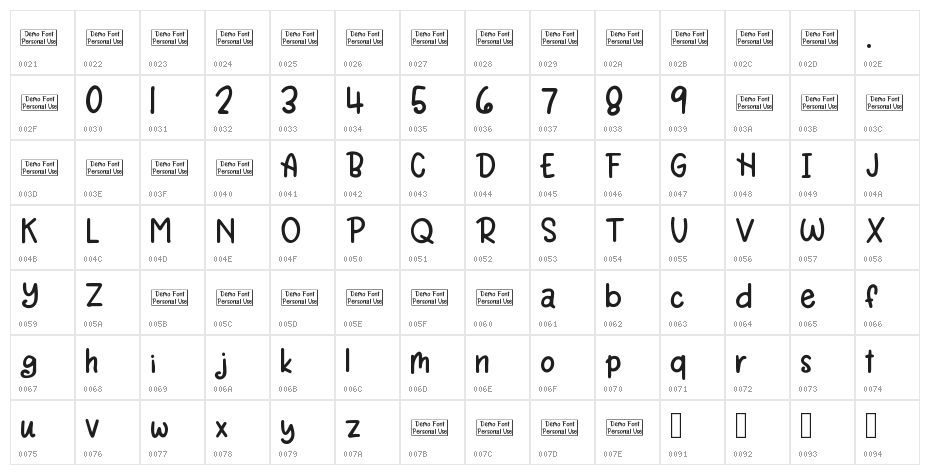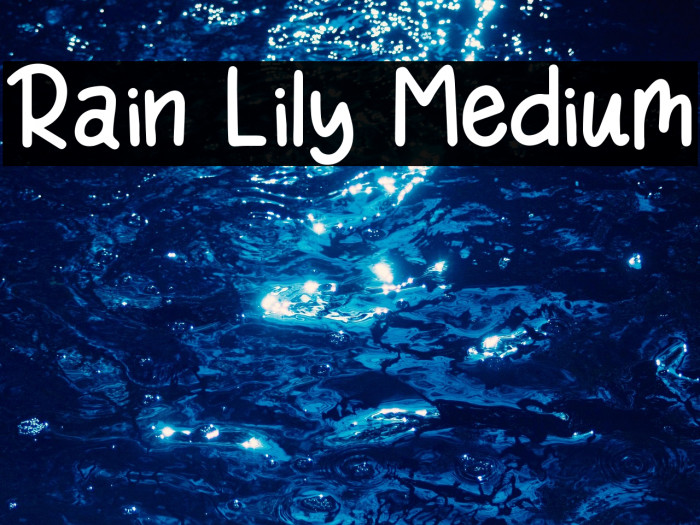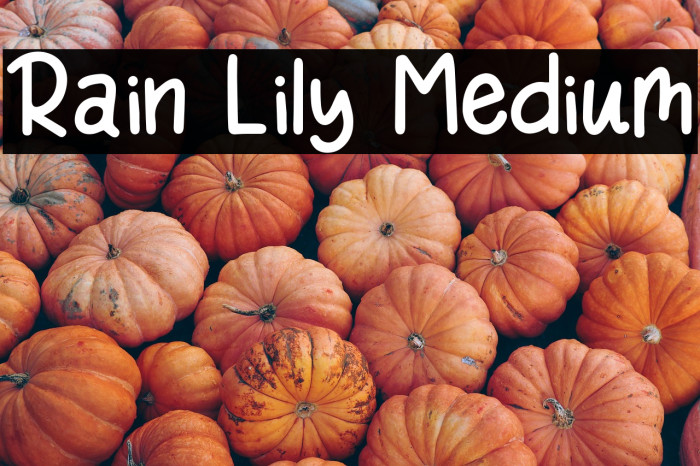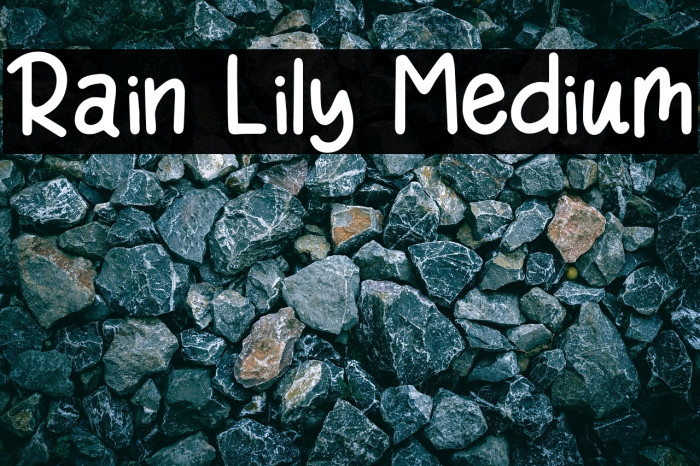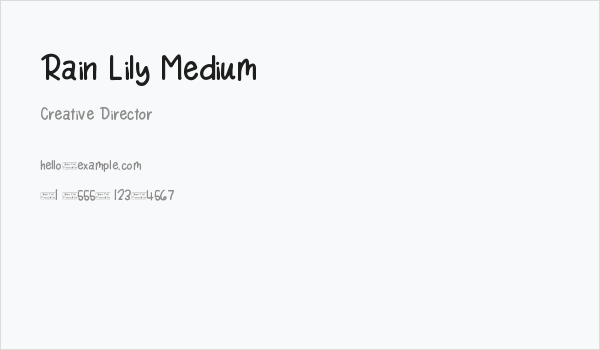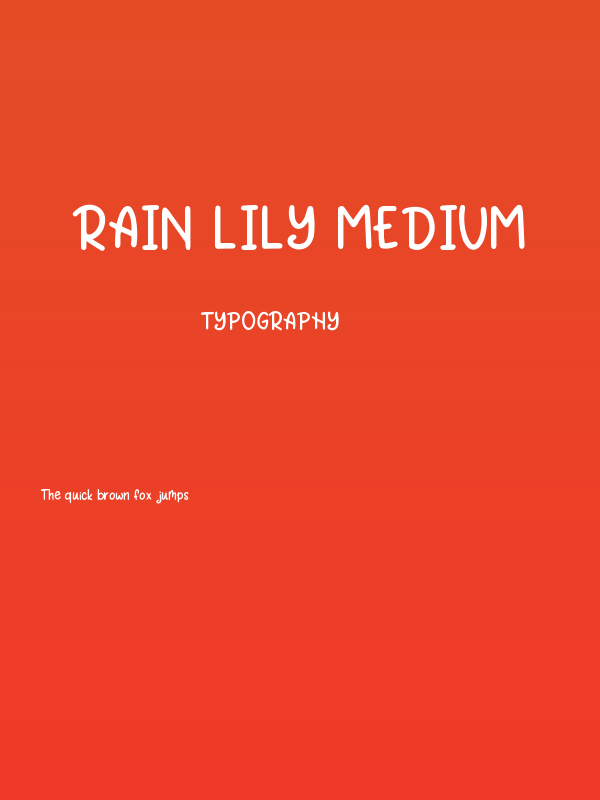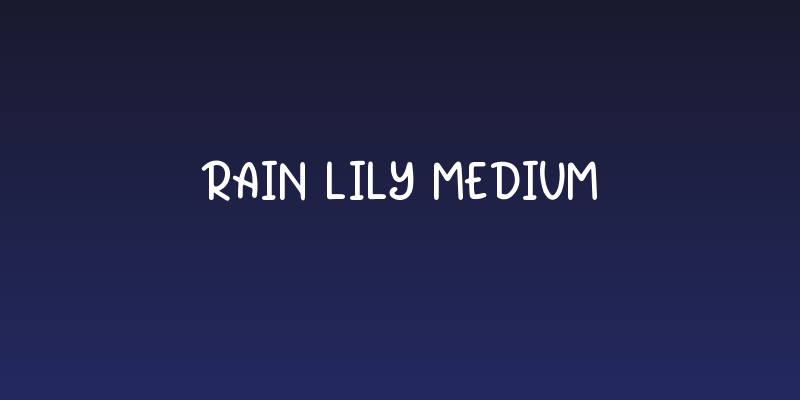
Rain Lily Medium Font
Rain Lily Medium Description
A playful, rounded sans-serif font with a handwritten appearance, featuring consistent stroke width and open, friendly letterforms. The characters are slightly irregular, enhancing the casual and approachable feel.
| Overall Style | Playful, Casual, Friendly |
| Use Case | Headlines, Posters, Informal Text, Children's Materials |
| Proposed Projects | ChildrenΓ’β¬β’s books, greeting cards, posters, educational materials, informal branding. |